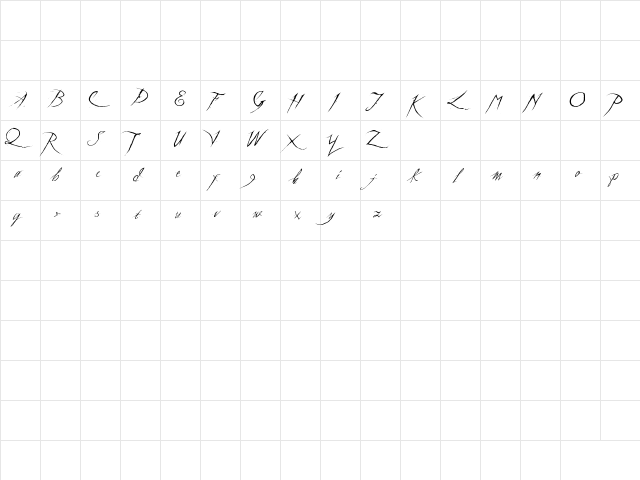
a Theme for murder Regular
Design Context for a Theme for murder Typeface
a Theme for murder is a composed and adaptable typeface that performs quietly and consistently across a wide range of design contexts.